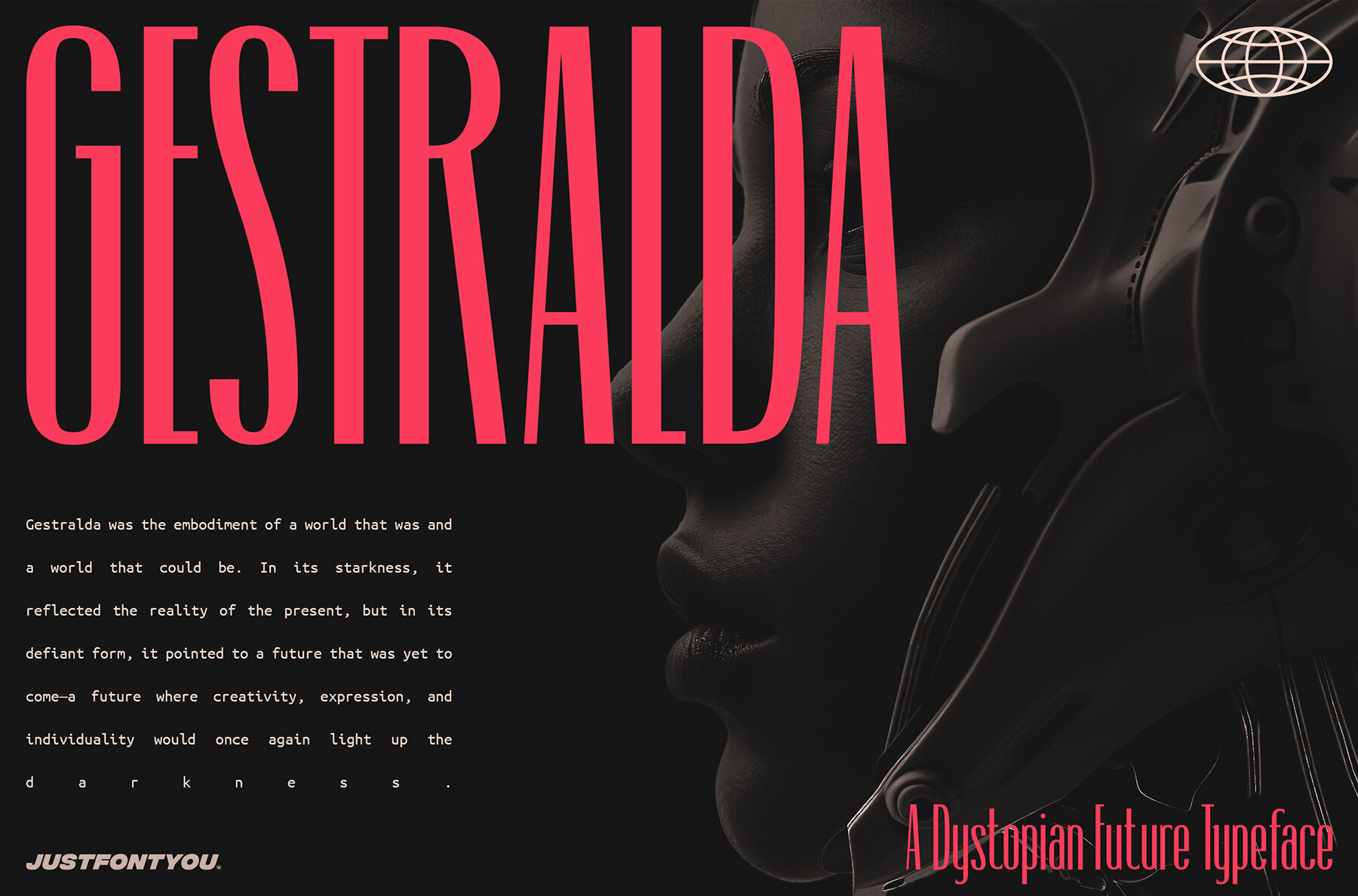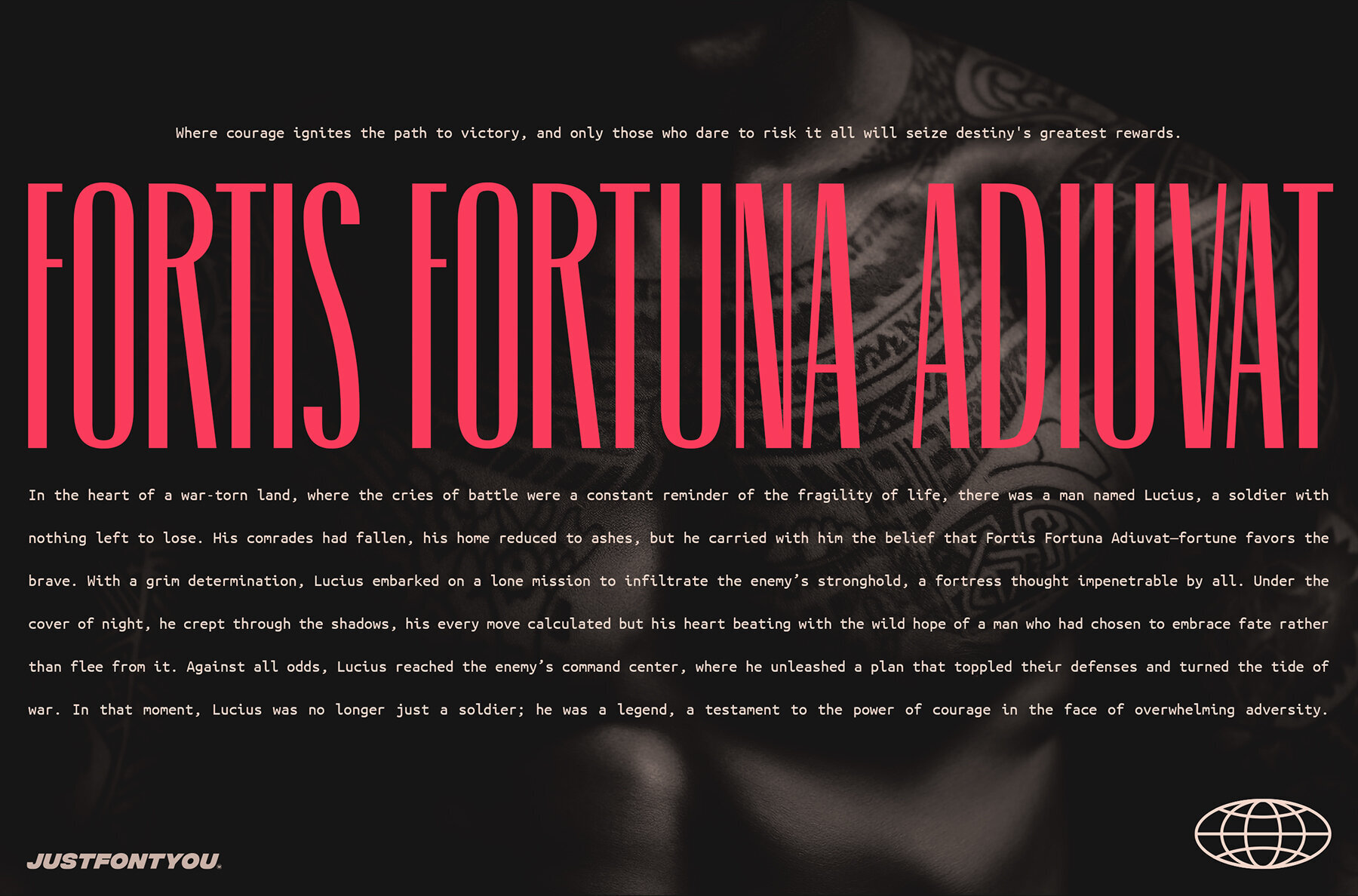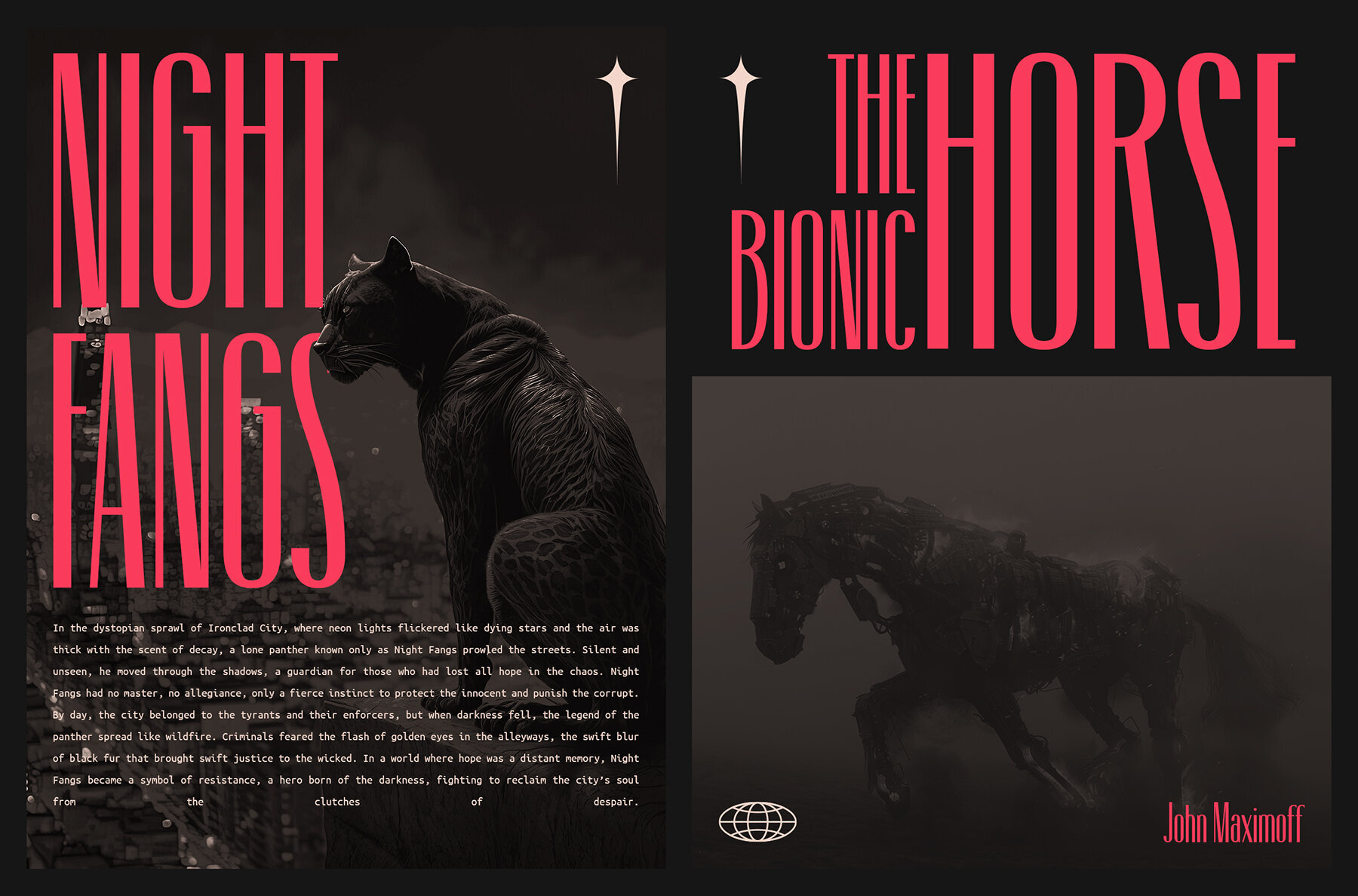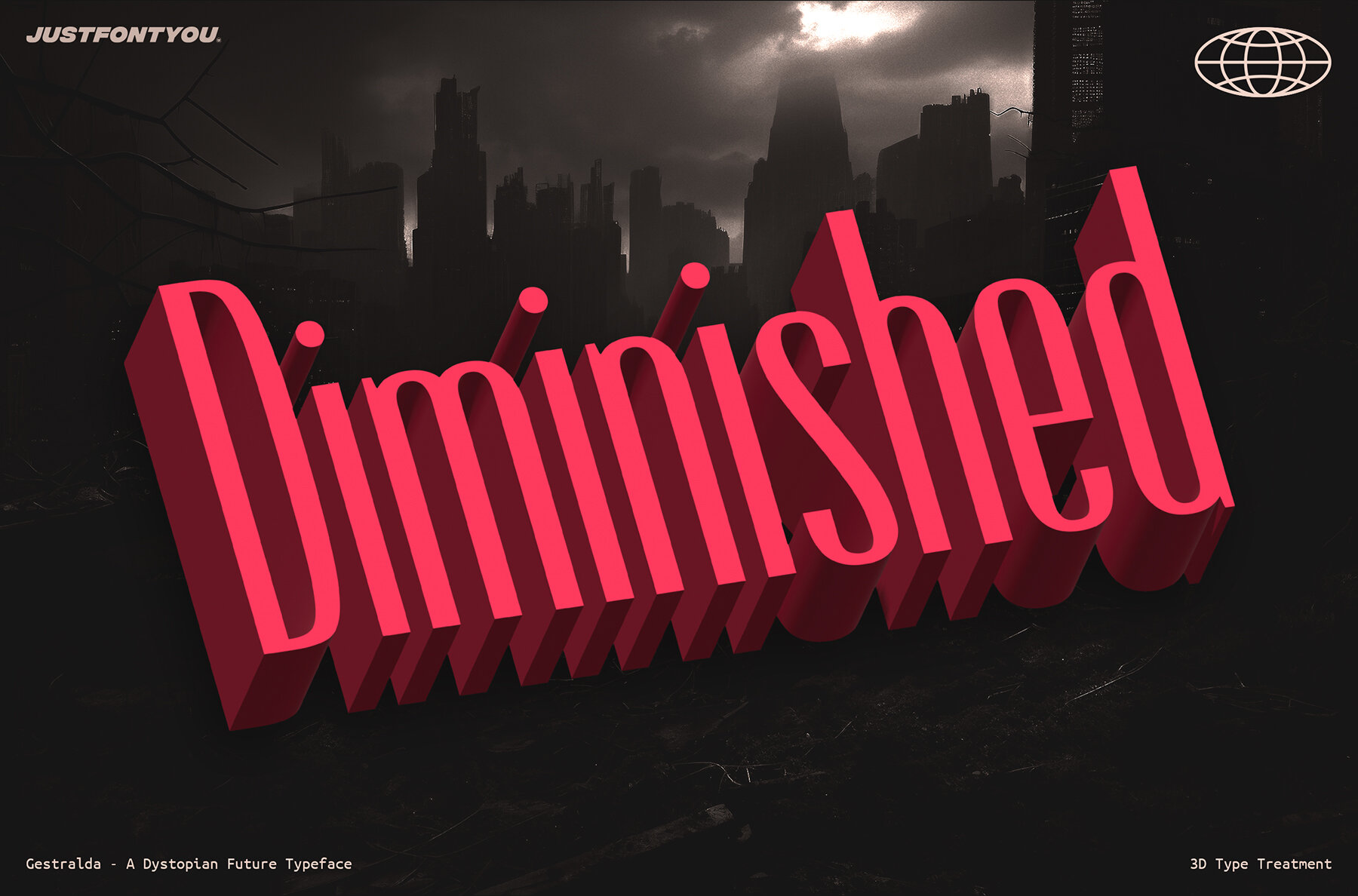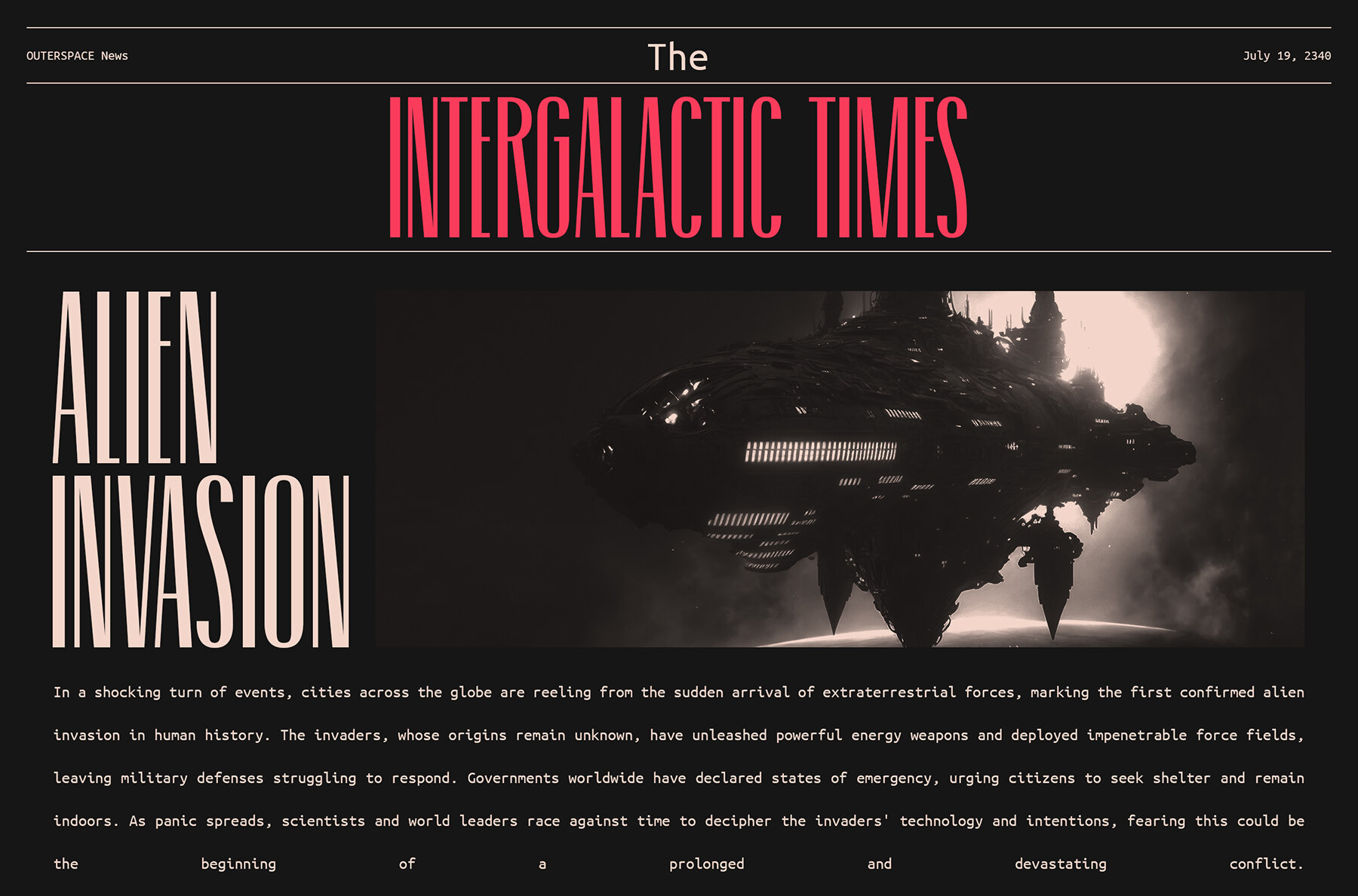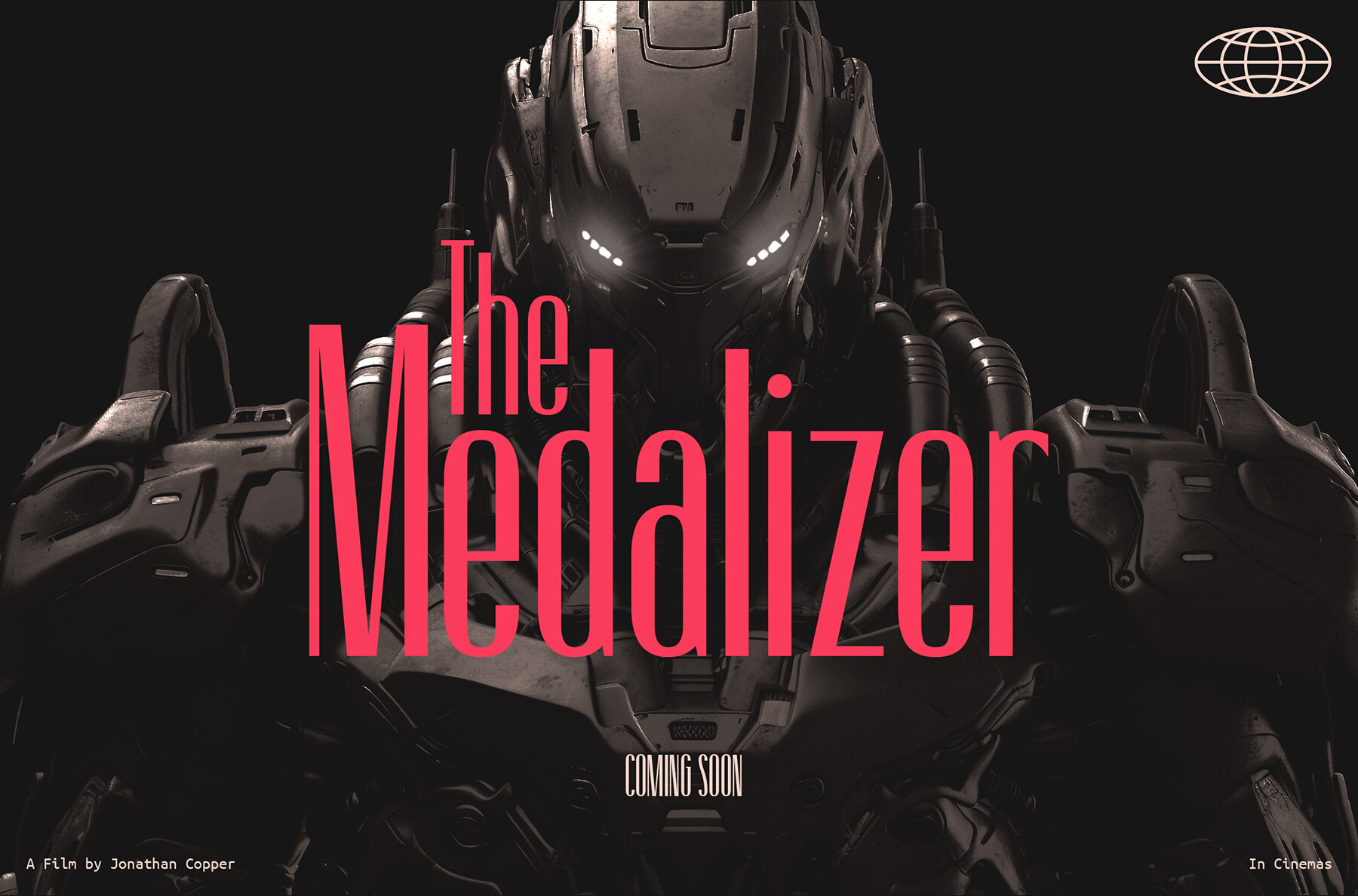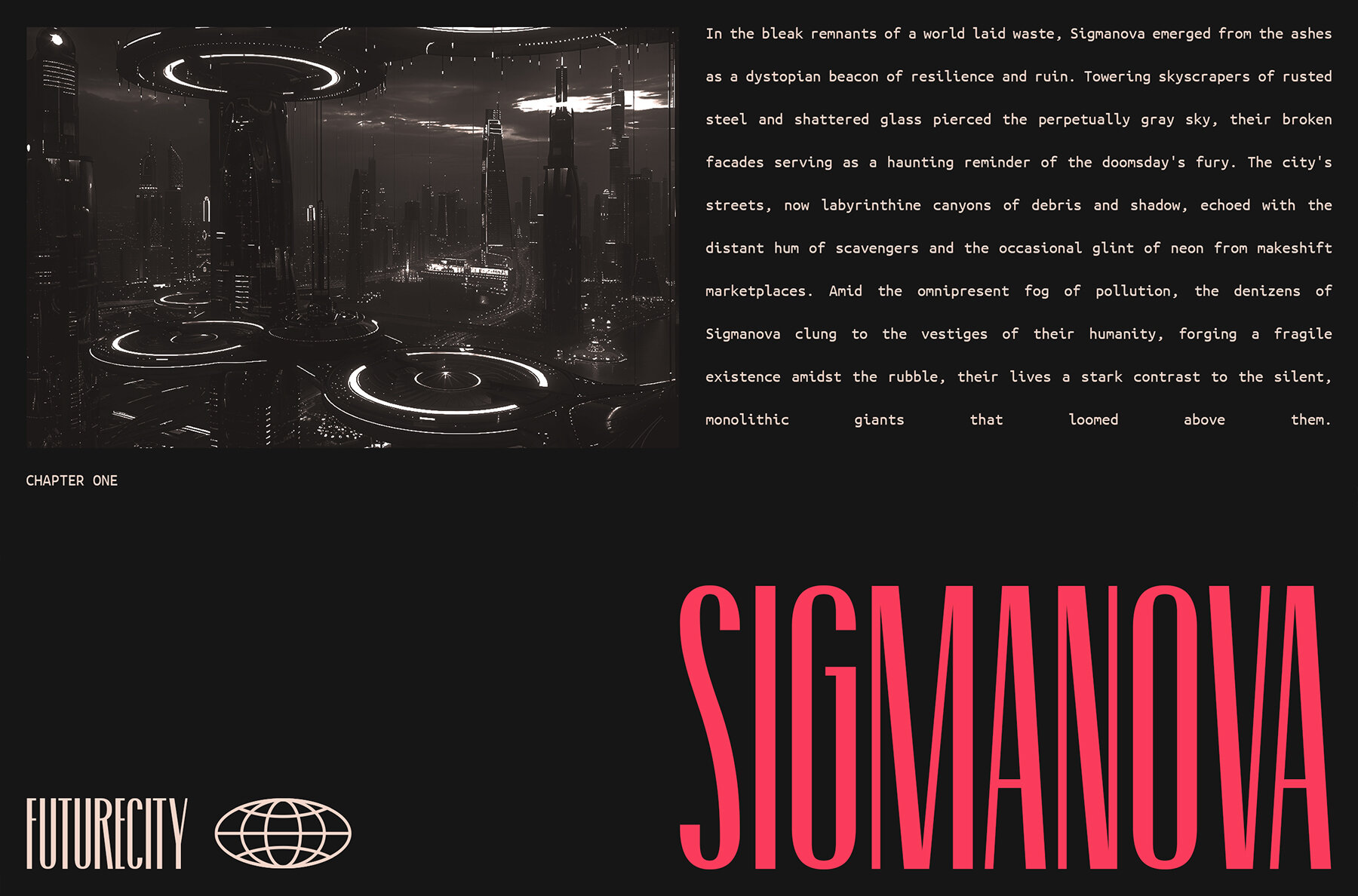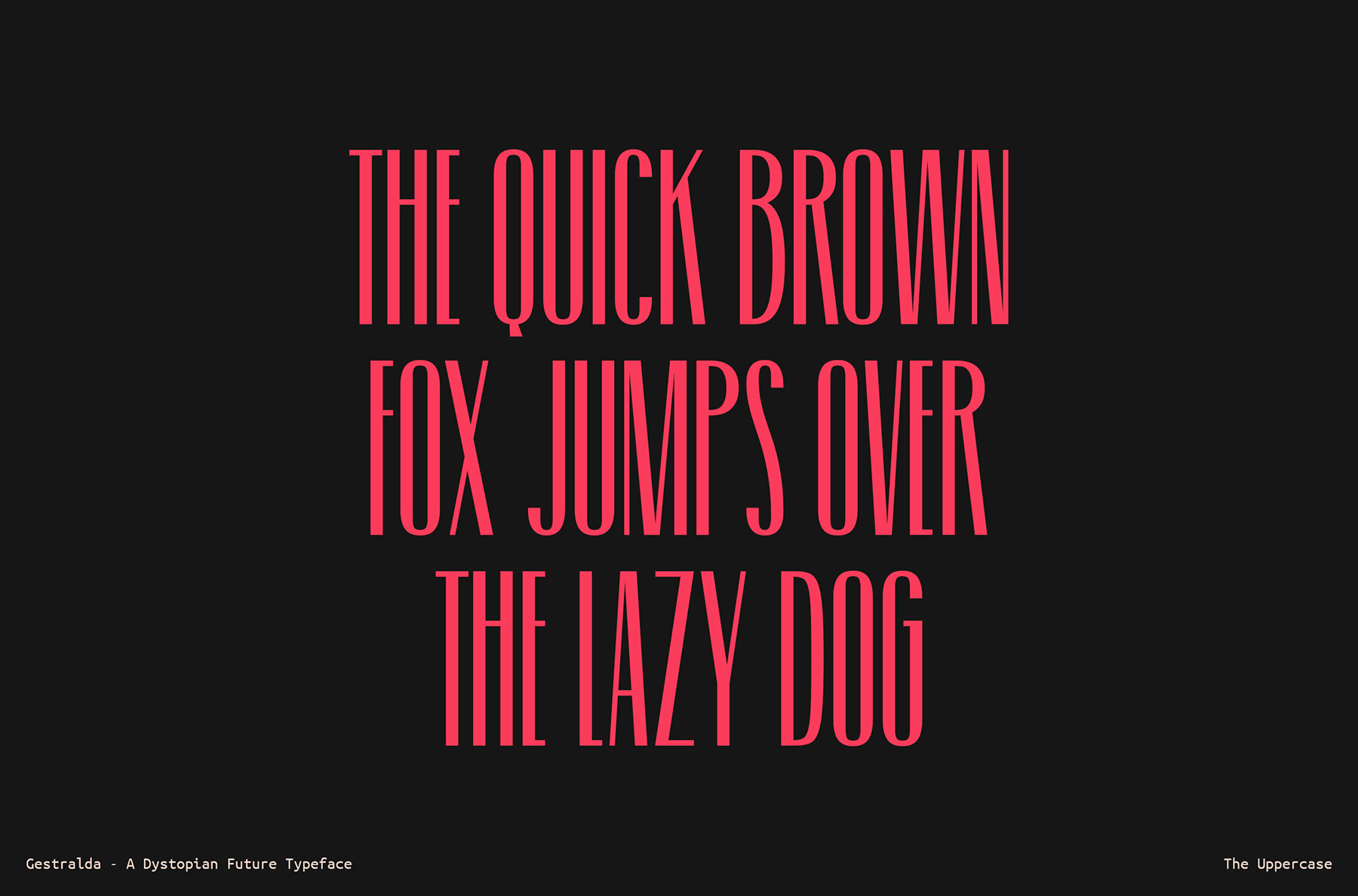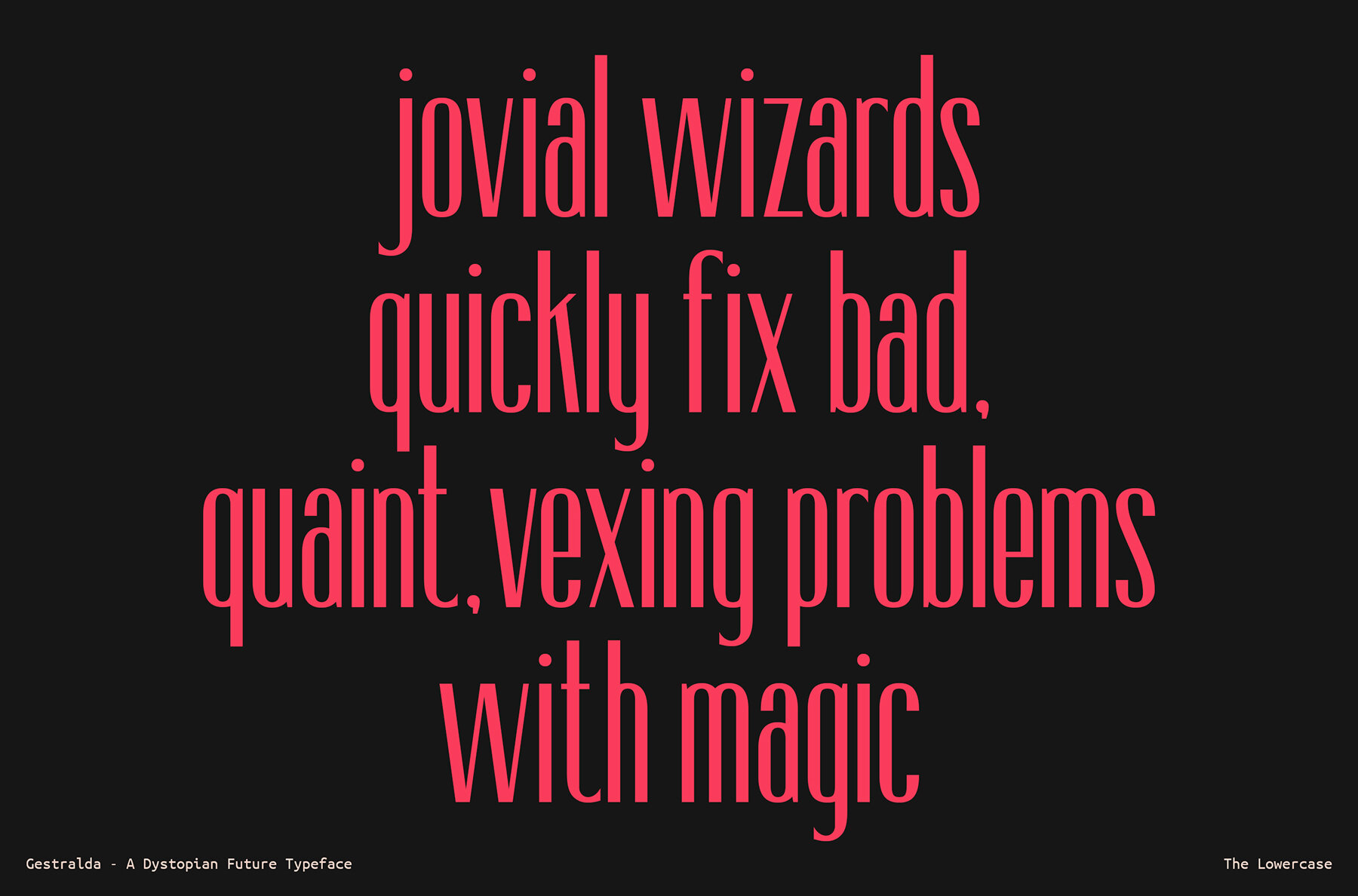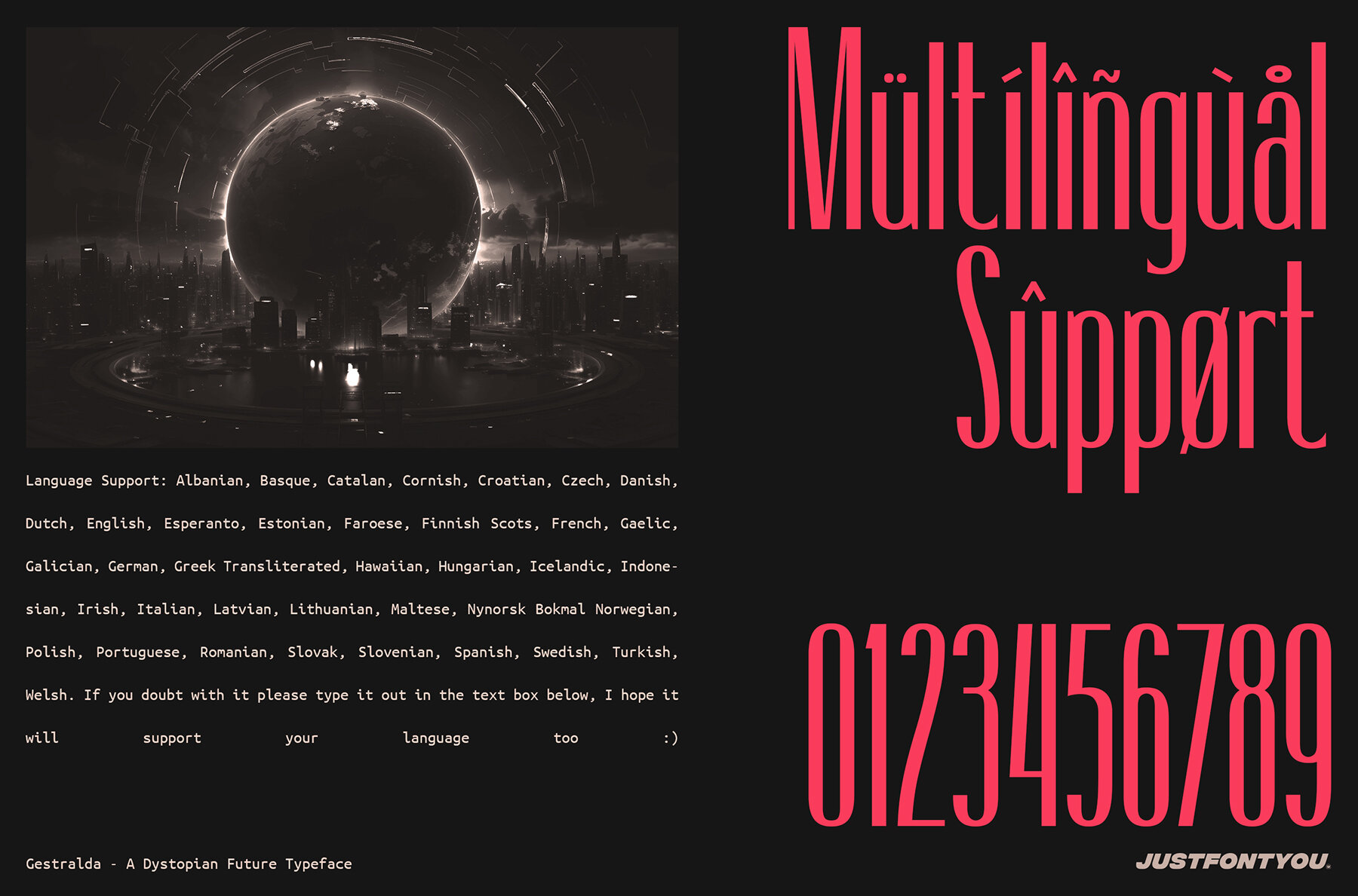
Gestralda Font
Introducing a typeface that embodies the essence of iconic sci-fi aesthetics - Gestralda. This futuristic font is meticulously crafted to evoke a realm where technology dominates and humanity grapples with its creations, making it perfect for high-tech brands, dystopian worlds, and forward-thinking designs. Its ultra-condensed style ensures that bold messages can fit into tight spaces, making it an excellent choice for posters, websites, and digital content.
Gestralda is versatile and suitable for a range of applications including logos, branding, gaming, esports, posters, music videos, album art, adverts, stream overlays, book covers, packaging, and fashion merchandise. Embrace a universe where the future remains unpredictable but style is undeniable. Download Gestralda and redefine the potential of your typographic designs today.